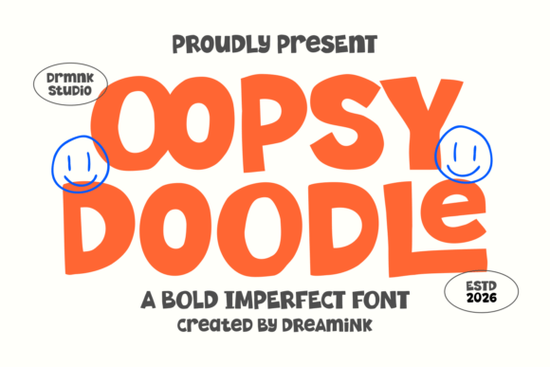
If you're looking for a display font that feels hand-cut, full of personality, and just a little bit playful, Oopsy Doodle Font might be exactly what your next project needs. Designed with intentional imperfections uneven baselines, irregular strokes, and a bold “cut-out” look it brings the charm of spontaneous doodling to typography without sacrificing legibility or impact.
This isn’t a font for formal reports or minimalist branding. Instead, Oopsy Doodle shines where creativity, energy, and handmade authenticity matter most: think kids’ apparel, craft supply labels, social media graphics for indie brands, or even streetwear logos that want to stand out without trying too hard.
What makes Oopsy Doodle different from other display fonts?
Many display fonts aim for quirkiness, but Oopsy Doodle leans into its handmade roots with purpose. The letterforms are chunky and high-contrast, yet each character carries subtle variations like something you’d carefully cut from construction paper. That slight wobble in the baseline? It’s not a flaw; it’s part of the design language.
Compare it to something like Juicy Lemon, which leans into bubbly, rounded forms, or Waves Beach, which channels coastal vibes through fluid curves. Oopsy Doodle doesn’t mimic handwriting or brushstrokes it mimics physical craft. That distinction matters if your audience values tactile, artisanal aesthetics.
Who should use this font?
Oopsy Doodle works best when your message benefits from warmth, approachability, and a dash of whimsy. Here are a few real-world uses:
- Print-on-demand sellers creating t-shirts, mugs, or tote bags with uplifting or humorous slogans
- Small business owners designing packaging for handmade goods like soaps, candles, or baked treats
- Social media managers crafting eye-catching Instagram story headers or TikTok text overlays
- Teachers and crafters making classroom decor, activity sheets, or DIY party invitations
It’s less suited for luxury branding, corporate identity, or anything requiring strict typographic neutrality but that’s by design. Its strength lies in expressing joyful imperfection.
How does it pair with other fonts?
Because Oopsy Doodle is so expressive on its own, pairing it with a clean, neutral sans-serif often works best. Think fonts like Helvetica Neue, Inter, or even something slightly geometric like Montserrat. The contrast lets Oopsy Doodle take center stage while keeping supporting text readable and unobtrusive.
If you’re building a full brand kit, consider balancing its energy with more restrained elements elsewhere. For example, while your logo might use Oopsy Doodle, your website body copy could use a friendly but simple typeface like Helpful Person another Creative Fabrica favorite that blends warmth with clarity.
Is it easy to use for beginners?
That said, because of its bold weight and irregular spacing, it’s worth testing your layout at actual size. What looks charming at 72pt might feel cramped at 18pt. Always preview your final output, especially for print projects.
For extra inspiration, browse how others have used similar styles. Fonts like Moment Request offer a different kind of expressive display more elegant, less “crafted” so seeing both side by side can help clarify your creative direction.
A quick checklist before you buy
- Check your license: Creative Fabrica offers commercial-use licenses, but always confirm usage rights for merch, POD, or client work.
- Test readability: Try typing your actual phrase (not just “The quick brown fox…”) to see how it flows.
- Consider context: Will this appear on a busy background? Over a photo? In small sizes? Oopsy Doodle thrives in spotlight roles, not supporting ones.
- Match your brand voice: If your brand is serious, sleek, or ultra-minimalist, this font may clash even if it’s visually appealing.
If your project calls for bold, cheerful, and authentically handmade energy, Oopsy Doodle delivers without overcomplicating things. It’s not trying to be perfect and that’s precisely why it works.